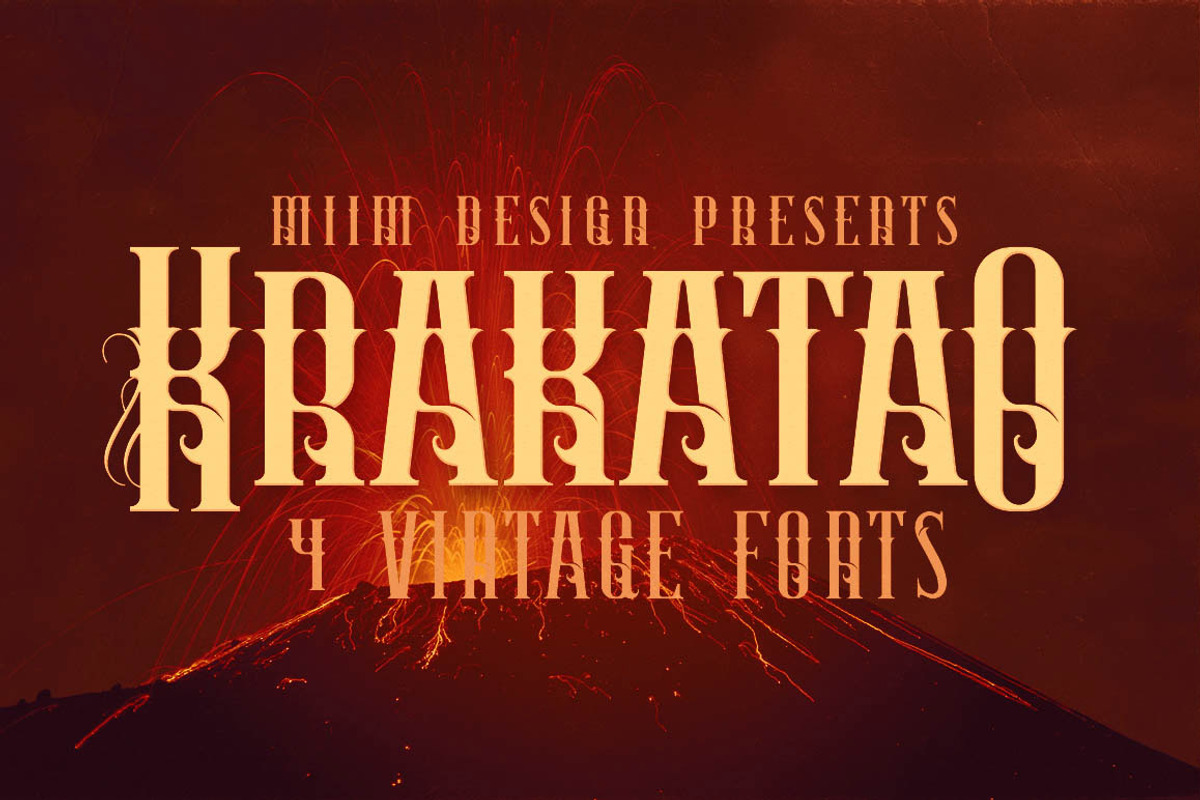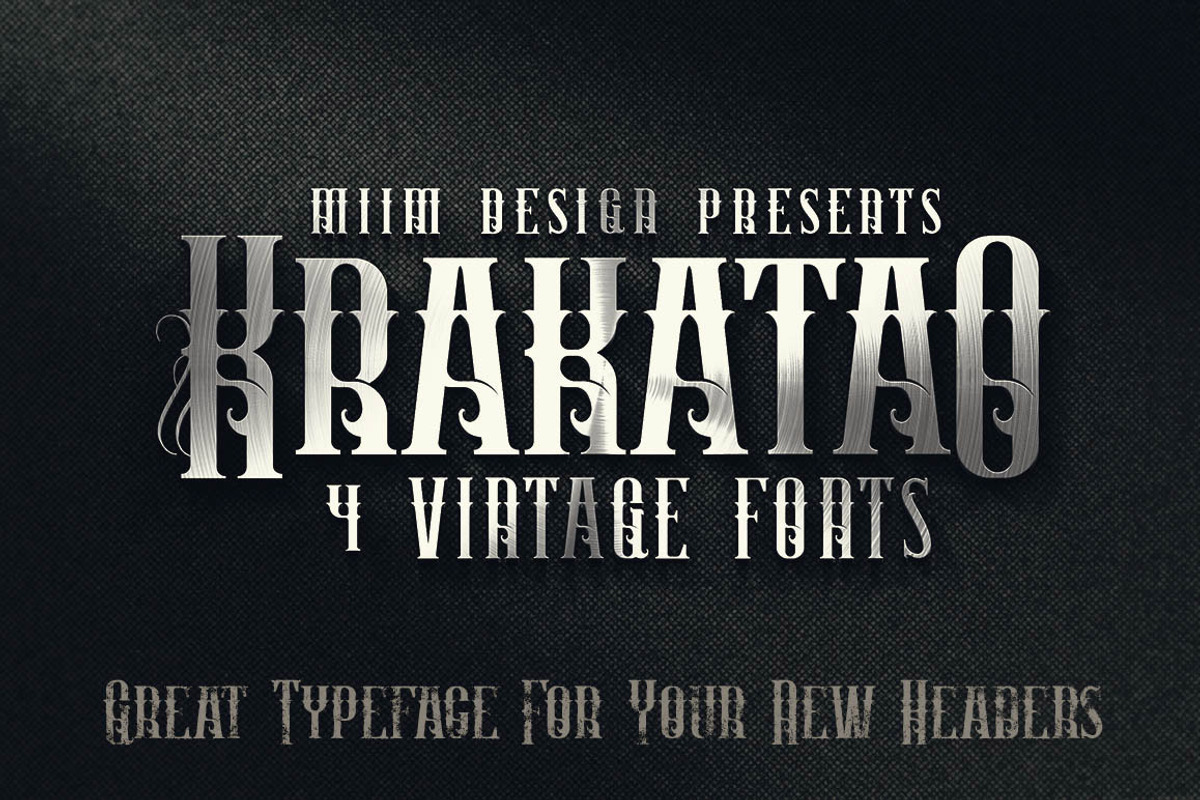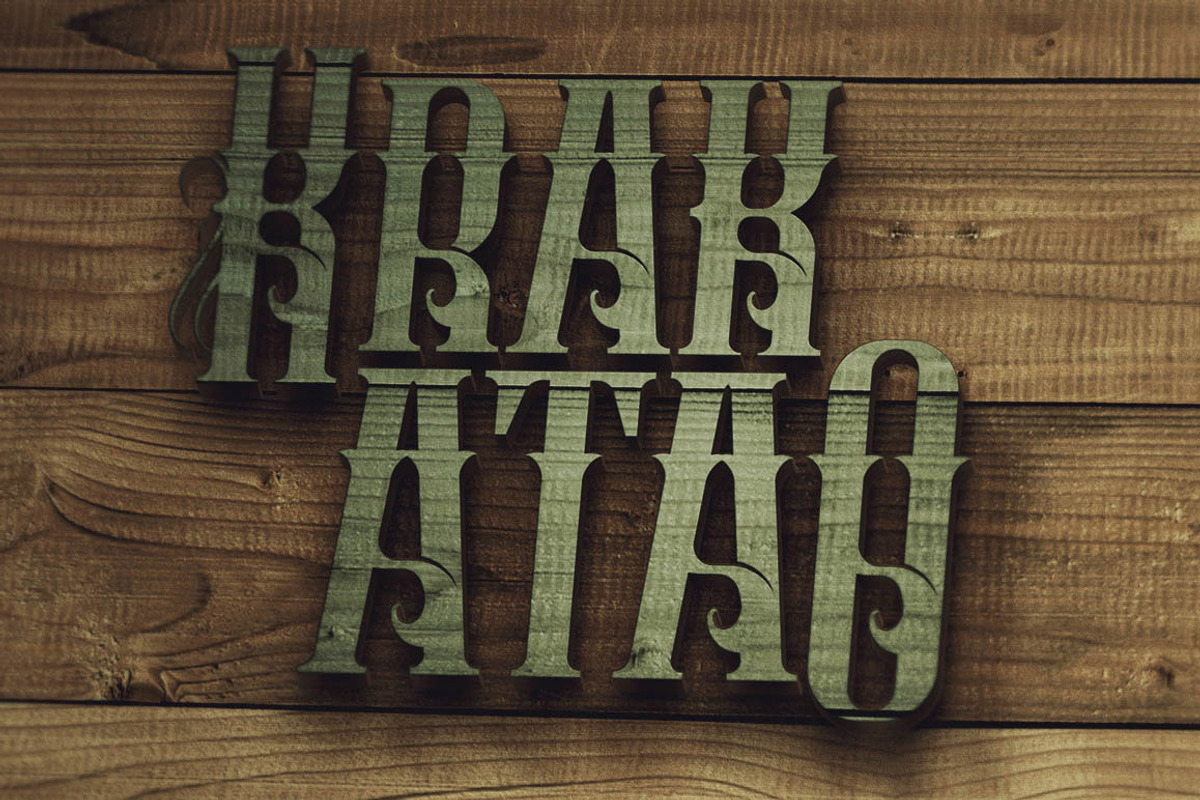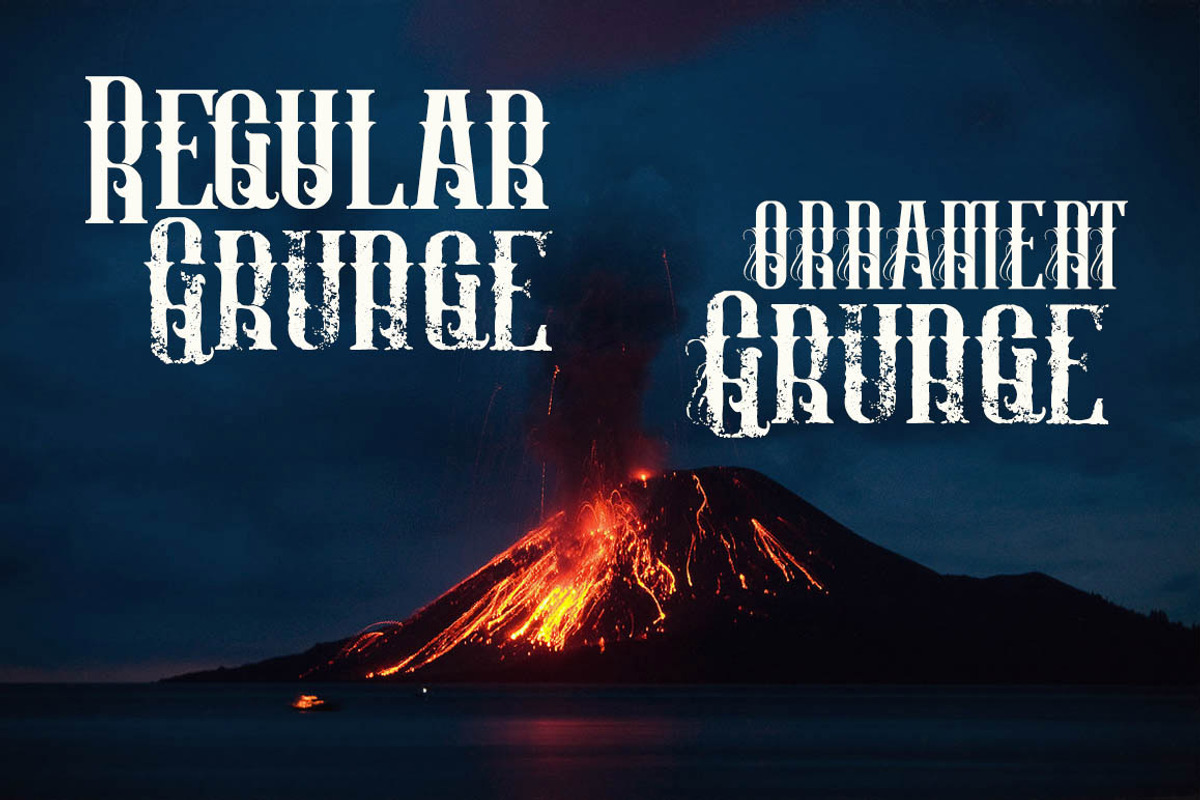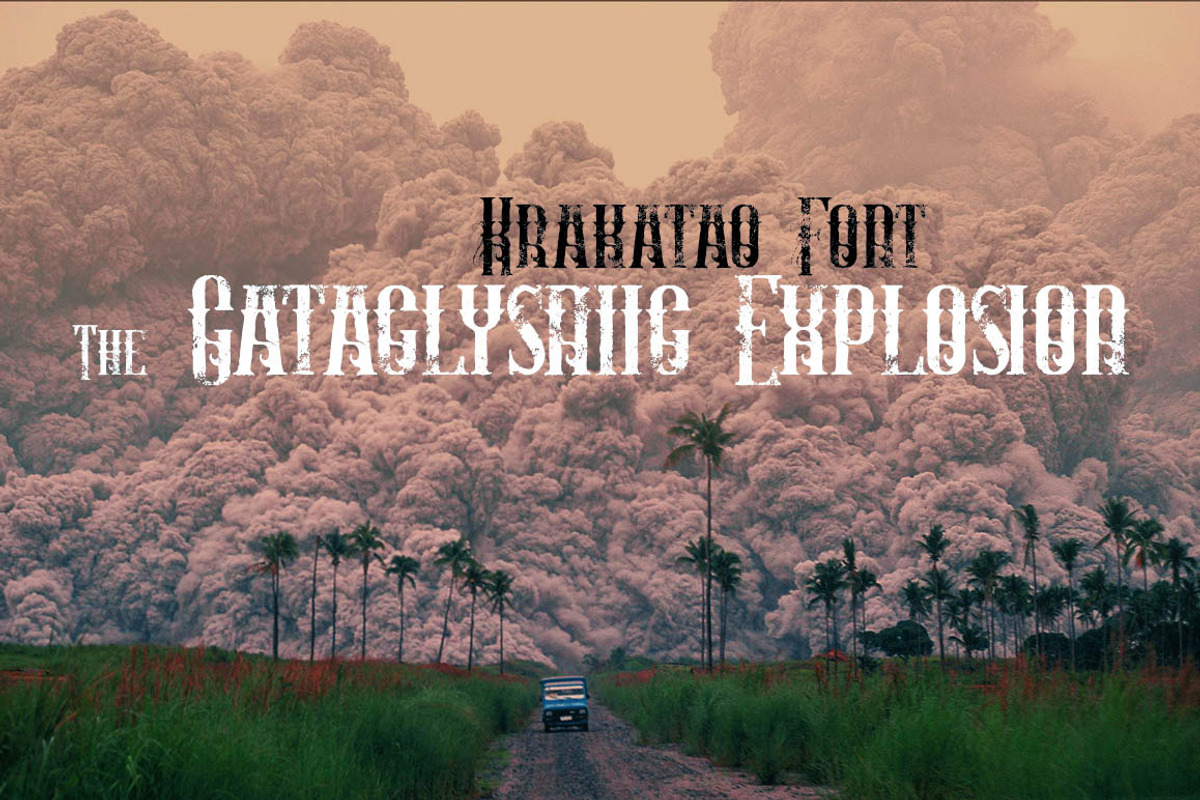
Krakatao - Vintage Font
Krakatao - Vintage Font by MIIM is a font selected for branding, posters, packaging, typography.
Why Krakatao - Vintage Font is worth a look
Krakatao - Vintage Font by MIIM fits naturally into Branding, posters, packaging, typography.